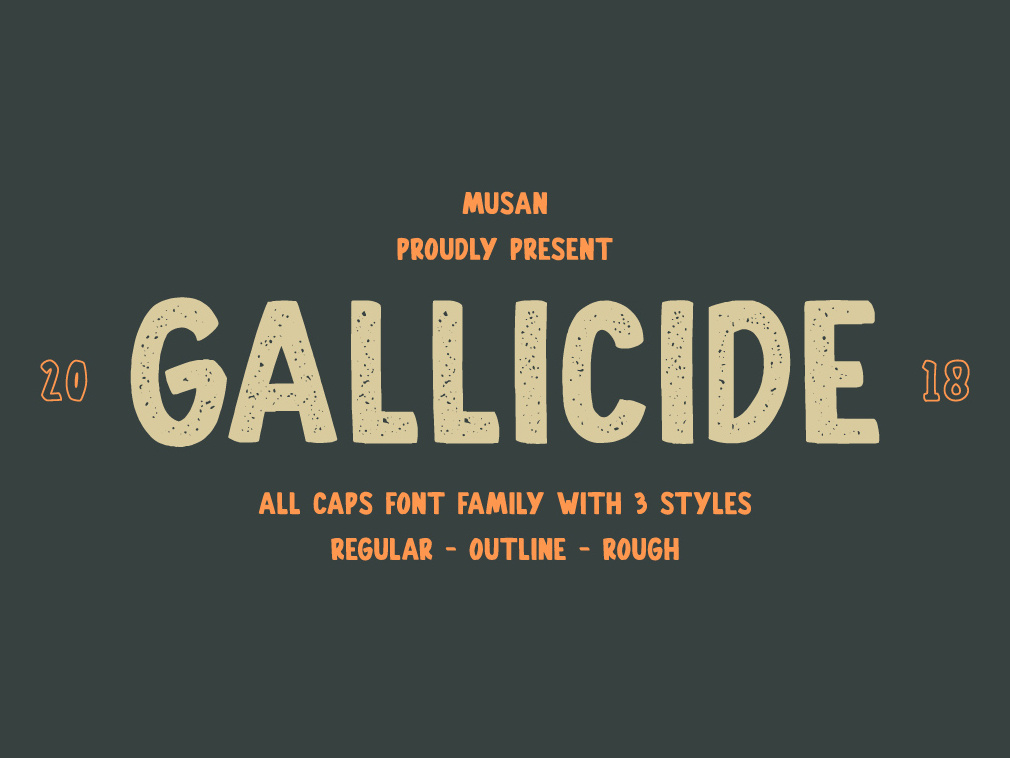
Gallicide All Caps Font Family
Introducing Gallicide, an all Caps Font Family which includes 3 font styles.
This font features an aggressive roughened effect and is perfect for any project that is adventurous or industrial.